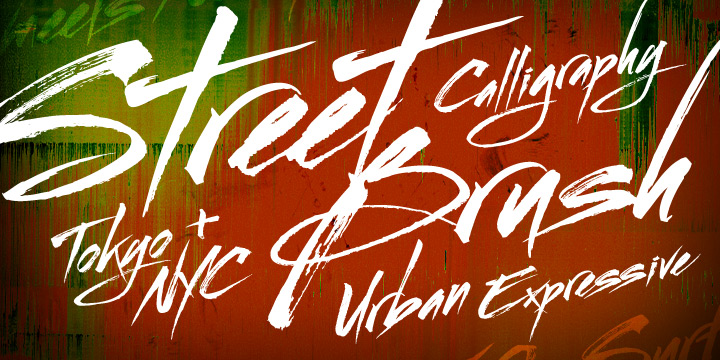
The Streetbrush Font excels in urban graffiti projects, street art galleries, hip-hop culture branding, urban fashion communications, skateboard graphics, underground music promotions, street festival materials, and authentic urban design applications that require raw energy with street credibility and artistic rebellion.
What makes the Streetbrush Font Free Download so exciting is its exceptional ability to capture the raw energy and authentic spirit of street art through typography that embodies both urban rebellion and artistic expression. This typeface features bold brush-style letterforms with street characteristics that suggest spray paint, artistic movement, and the uncompromising authenticity of underground culture. Its urban aesthetic speaks to street artists and audiences who appreciate genuine urban culture and artistic rebellion, making it perfect for street art organizations, urban brands, and underground movements requiring typography that projects street credibility and artistic authenticity.
The Streetbrush Font family encompasses powerful brush variations that preserve the font's signature street character while ensuring readability across urban applications. The collection includes authentic brush styling with street characteristics that enhance the font's graffiti appeal and underground sophistication. This raw font system ensures street artists and urban brands have access to typography that conveys genuine street energy while creating immediate connection to concepts of urban art, street culture, and underground artistic expression.
Perfect for street art galleries, urban fashion brands, hip-hop venues, and creative professionals working on projects that celebrate authentic street culture and urban artistic expression. The font's street appeal makes it invaluable for urban marketers, street art curators, and underground culture promoters developing communications that must resonate with authentic street communities. Download Streetbrush Font Free Download today and paint the streets with this exceptional typeface that flows with urban energy while delivering street credibility and artistic rebellion for authentic underground communications.